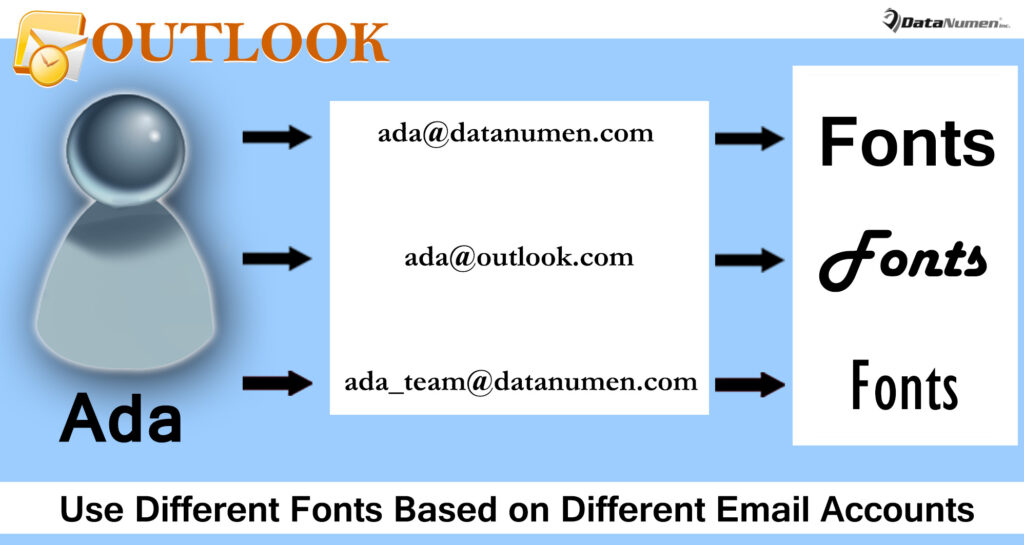
Best Font For Outlook Business Emails . best professional email fonts for business. Even something as minor as italics can affect your emails’ readability. the right email font can enhance your message’s impact and reflect your brand’s identity, while the wrong choice may lead to decreased. legible fonts help readers scan your email, identify key points, and make quick sales decisions. Once you find one that is email safe,. When it comes to emails, it’s best to stick with standard fonts like. Research shows that people need 50% more time to read italic font styles in contrast to regular typefaces. Some fonts are playful, while others are more professional—and some unique ones have a. for the best results with your company emails and email marketing campaigns, choose font styles and sizes that enhance your brand. how you present an email can be just as important as what you say, so make use of the best font for email. what is the best font for outlook emails?
for the best results with your company emails and email marketing campaigns, choose font styles and sizes that enhance your brand. When it comes to emails, it’s best to stick with standard fonts like. Research shows that people need 50% more time to read italic font styles in contrast to regular typefaces. what is the best font for outlook emails? Even something as minor as italics can affect your emails’ readability. the right email font can enhance your message’s impact and reflect your brand’s identity, while the wrong choice may lead to decreased. best professional email fonts for business. Some fonts are playful, while others are more professional—and some unique ones have a. Once you find one that is email safe,. how you present an email can be just as important as what you say, so make use of the best font for email.
Best Font For Outlook Business Emails legible fonts help readers scan your email, identify key points, and make quick sales decisions. When it comes to emails, it’s best to stick with standard fonts like. Research shows that people need 50% more time to read italic font styles in contrast to regular typefaces. Once you find one that is email safe,. best professional email fonts for business. what is the best font for outlook emails? Some fonts are playful, while others are more professional—and some unique ones have a. Even something as minor as italics can affect your emails’ readability. for the best results with your company emails and email marketing campaigns, choose font styles and sizes that enhance your brand. the right email font can enhance your message’s impact and reflect your brand’s identity, while the wrong choice may lead to decreased. how you present an email can be just as important as what you say, so make use of the best font for email. legible fonts help readers scan your email, identify key points, and make quick sales decisions.
10 Best Fonts for Email Design in 2022 [& Best Practices] Best Font For Outlook Business Emails Research shows that people need 50% more time to read italic font styles in contrast to regular typefaces. how you present an email can be just as important as what you say, so make use of the best font for email. best professional email fonts for business. the right email font can enhance your message’s impact and. Best Font For Outlook Business Emails.
Email Typography 8 Best Fonts for Email (And Custom Email Font Ideas) Best Font For Outlook Business Emails best professional email fonts for business. how you present an email can be just as important as what you say, so make use of the best font for email. legible fonts help readers scan your email, identify key points, and make quick sales decisions. for the best results with your company emails and email marketing campaigns,. Best Font For Outlook Business Emails.
Choosing the 8 Best Font for Emails A Guide to Professional Best Font For Outlook Business Emails Research shows that people need 50% more time to read italic font styles in contrast to regular typefaces. how you present an email can be just as important as what you say, so make use of the best font for email. Even something as minor as italics can affect your emails’ readability. Once you find one that is email. Best Font For Outlook Business Emails.
Set default fonts for Emails Microsoft Outlook 365 Best Font For Outlook Business Emails legible fonts help readers scan your email, identify key points, and make quick sales decisions. Research shows that people need 50% more time to read italic font styles in contrast to regular typefaces. When it comes to emails, it’s best to stick with standard fonts like. how you present an email can be just as important as what. Best Font For Outlook Business Emails.
How To Change Outlook Font Size For Different Email Types Best Font For Outlook Business Emails Once you find one that is email safe,. Research shows that people need 50% more time to read italic font styles in contrast to regular typefaces. legible fonts help readers scan your email, identify key points, and make quick sales decisions. When it comes to emails, it’s best to stick with standard fonts like. for the best results. Best Font For Outlook Business Emails.
Best Font For The Personal Mail / Email Typography 8 Best Fonts For Best Font For Outlook Business Emails what is the best font for outlook emails? for the best results with your company emails and email marketing campaigns, choose font styles and sizes that enhance your brand. legible fonts help readers scan your email, identify key points, and make quick sales decisions. the right email font can enhance your message’s impact and reflect your. Best Font For Outlook Business Emails.